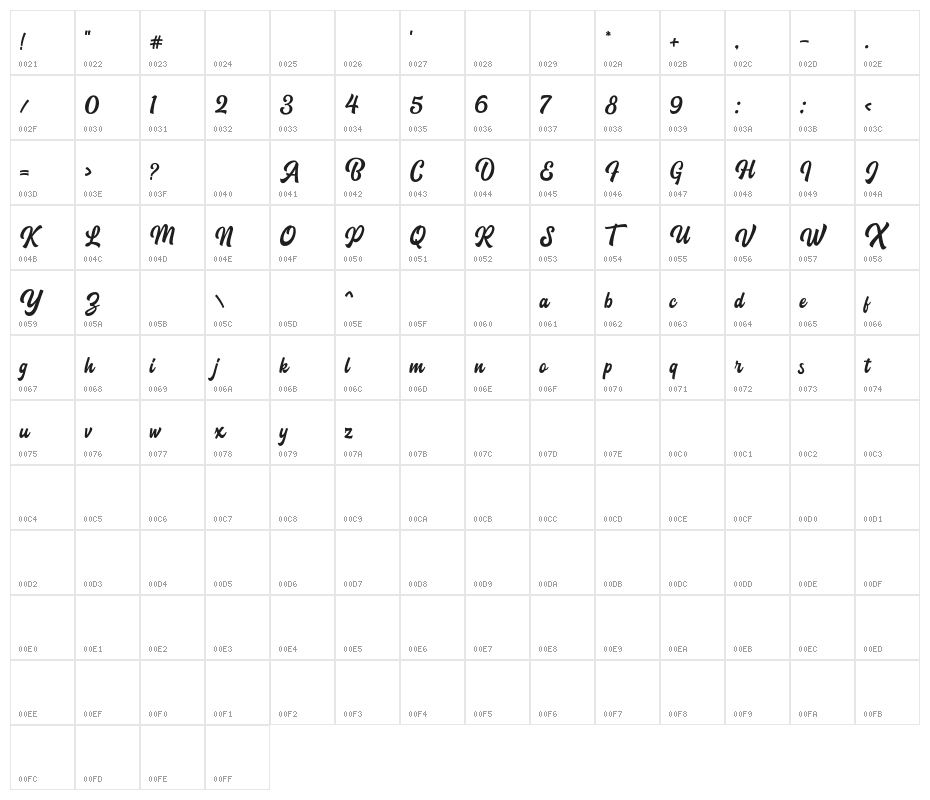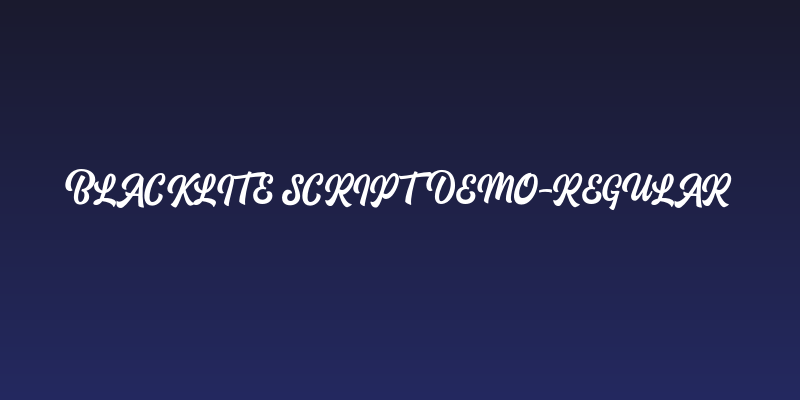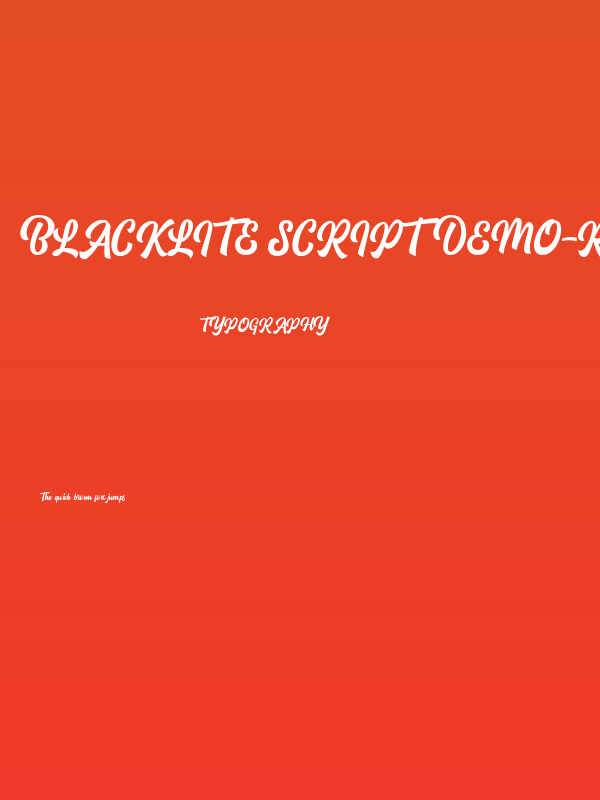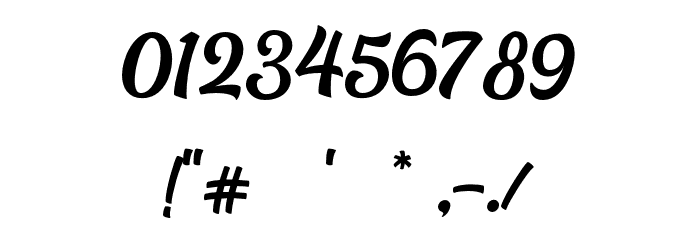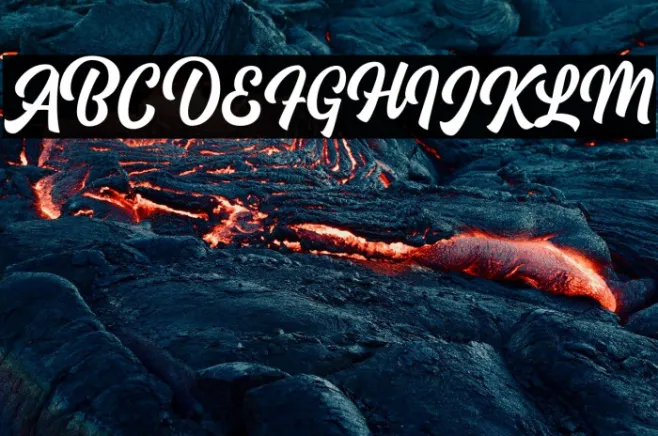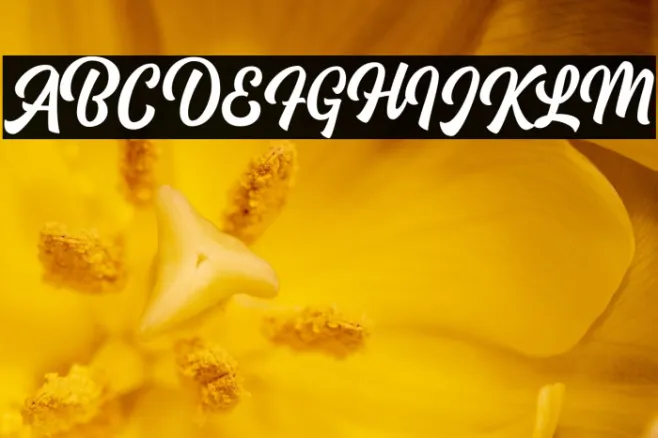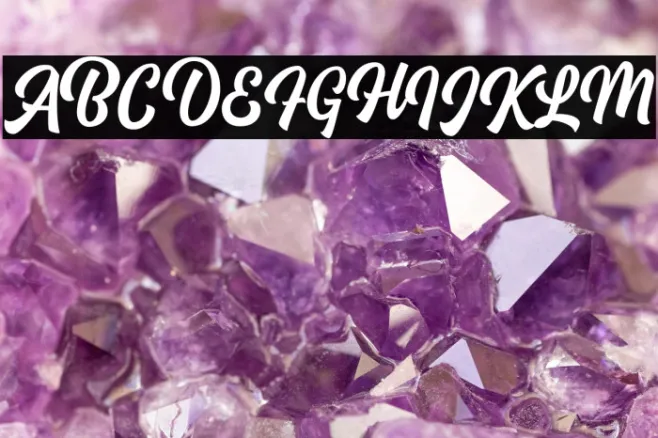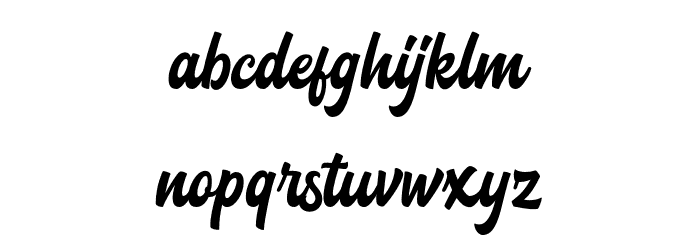
Blacklite Script DEMO-Regular Font
Blacklite Script DEMO-Regular Description
This font exudes a lively and dynamic script style, characterized by its flowing, cursive letterforms. The uppercase letters are bold and slightly slanted, giving a sense of movement and elegance. The lowercase letters maintain a consistent flow, with smooth connections between each character, enhancing readability while preserving the script's artistic flair. The numerals are well-balanced, matching the overall style of the alphabet. Special characters are designed to complement the script's aesthetic, ensuring a cohesive look across all text elements. This font is ideal for projects that require a touch of sophistication and creativity.